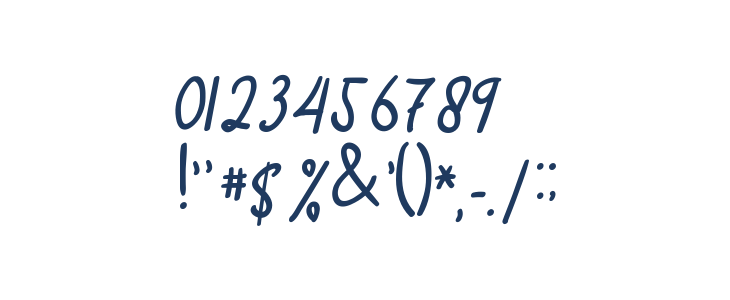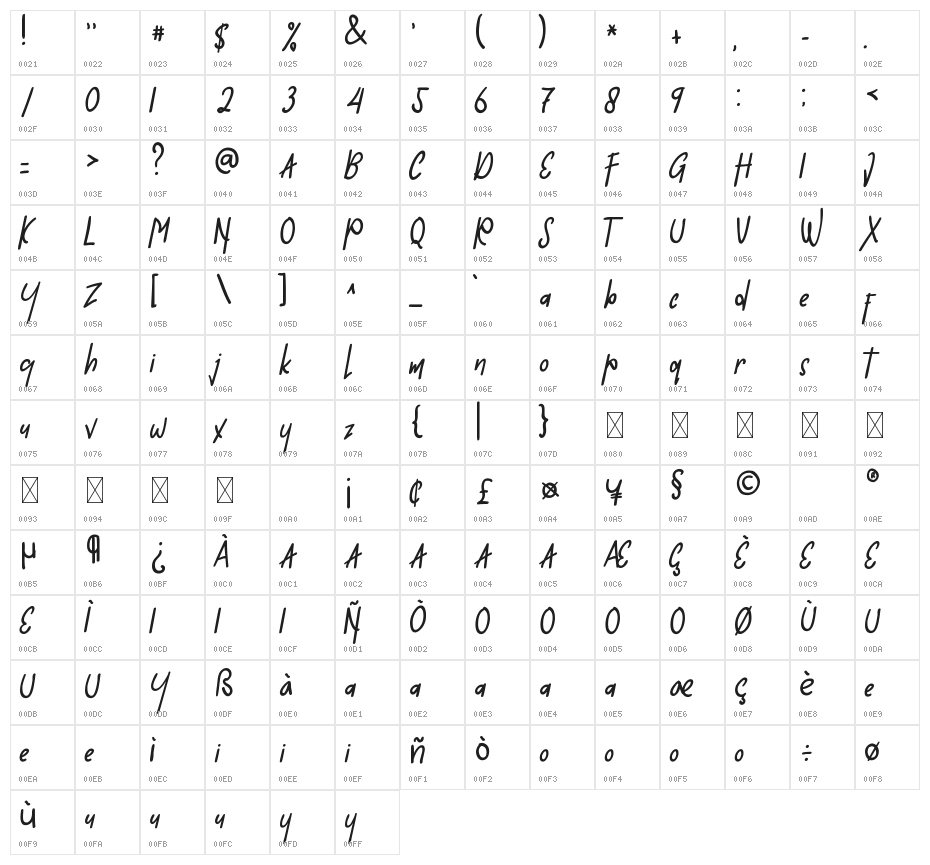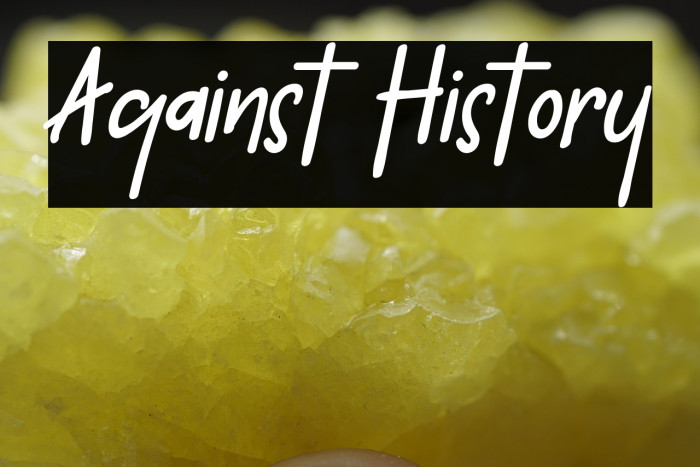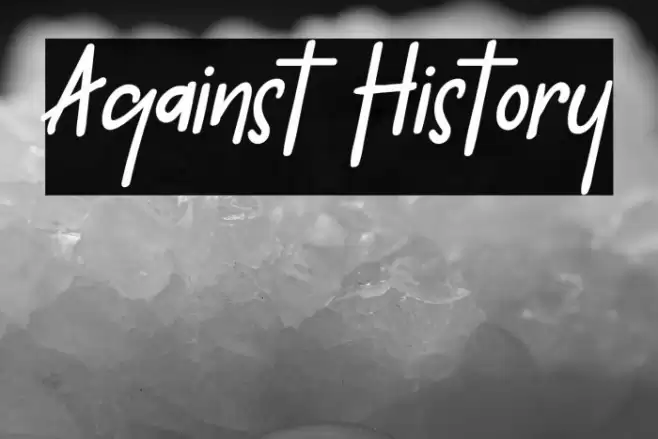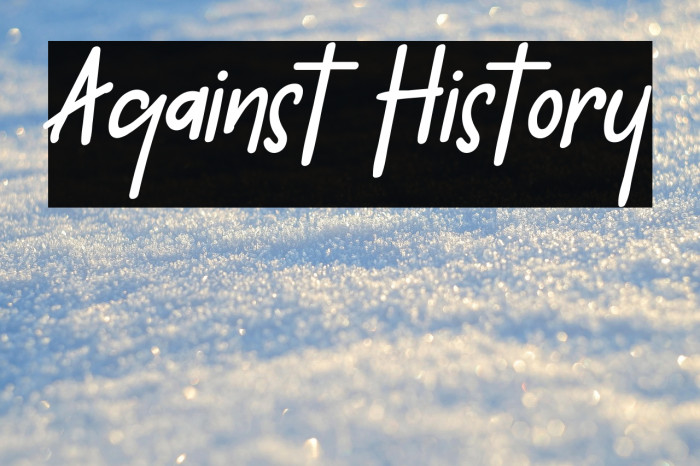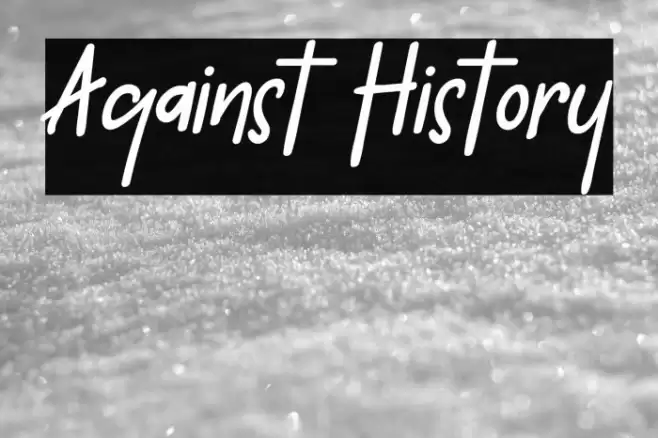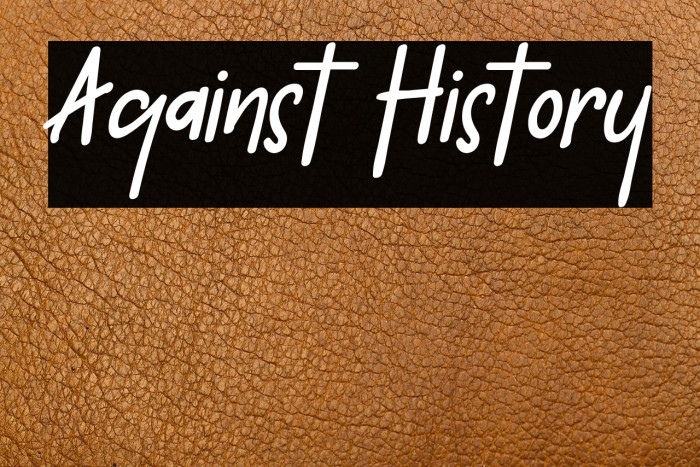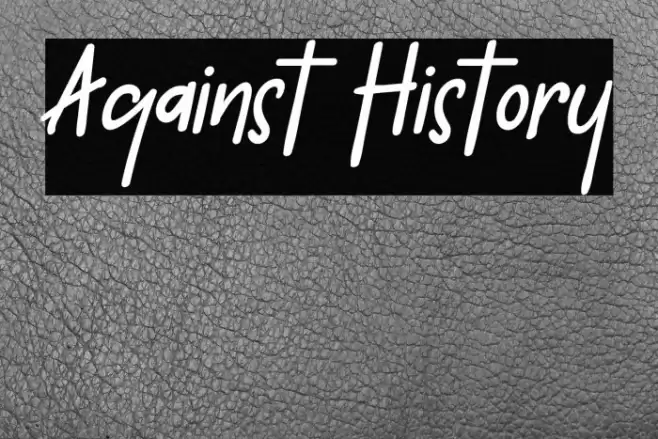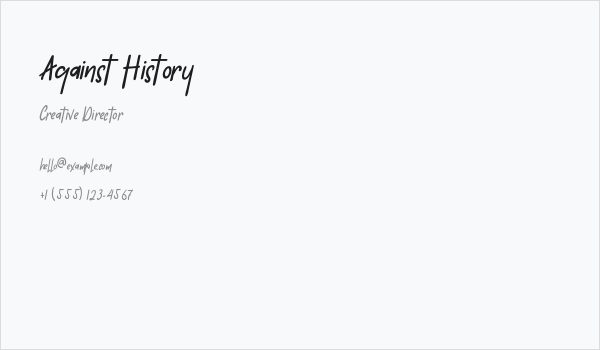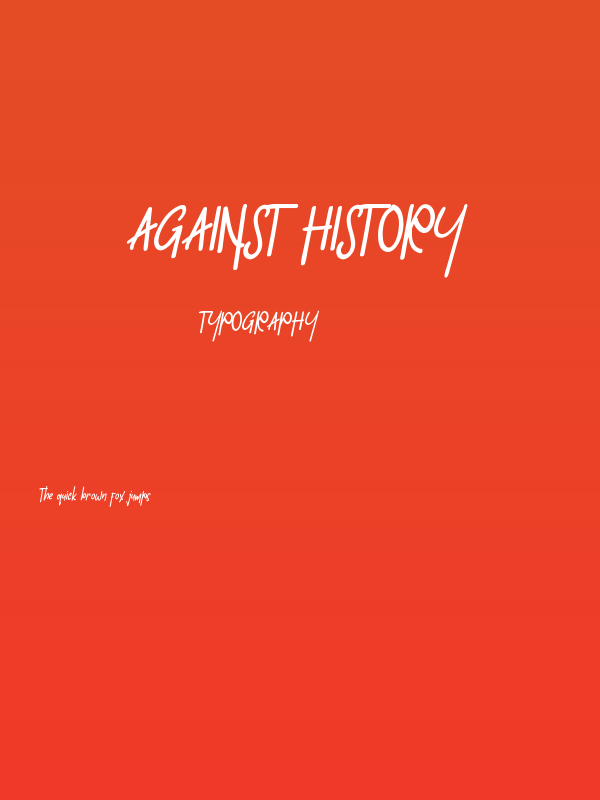
Against History Font
Against History Description
This font exudes a dynamic and energetic style with its handwritten appearance. The letters are slightly slanted, giving a sense of motion and fluidity. The strokes are uneven, adding a personal and informal touch. The uppercase letters are bold and prominent, while the lowercase letters maintain a consistent flow. Numbers and special characters follow the same lively style, ensuring cohesion throughout. The overall design is playful yet legible, making it suitable for creative projects that require a personal touch.
| Proposed Projects | Ideal for creative projects such as greeting cards, posters, and social media graphics. It can also be used for branding that seeks a personal and informal touch. |